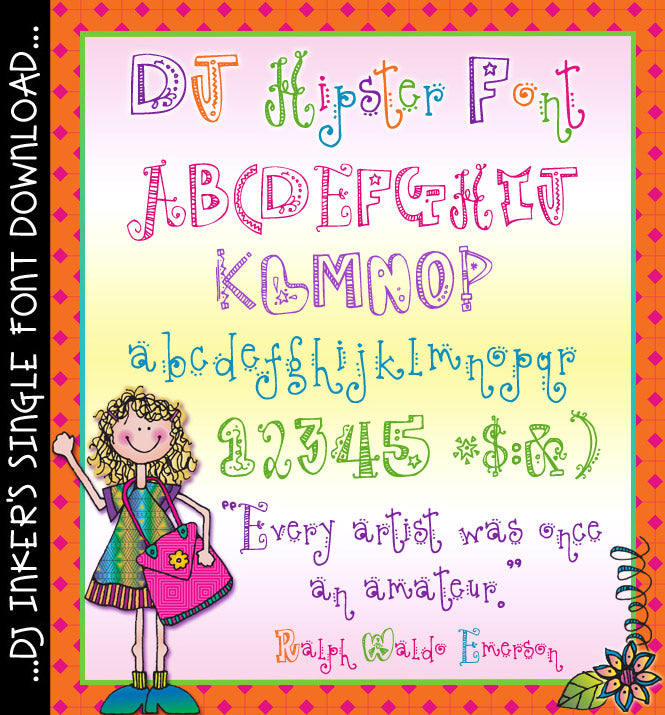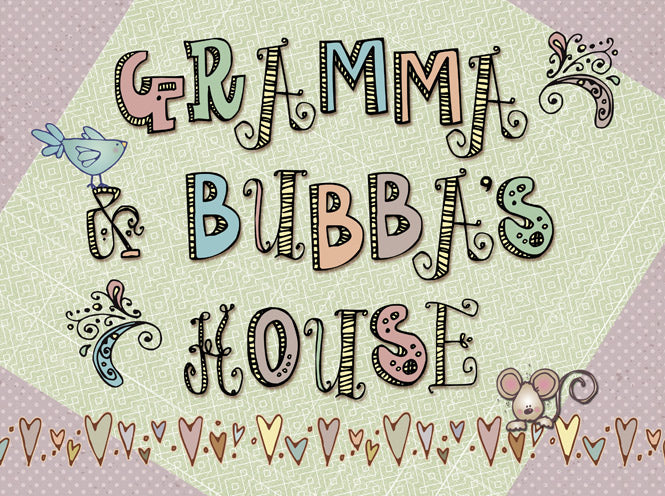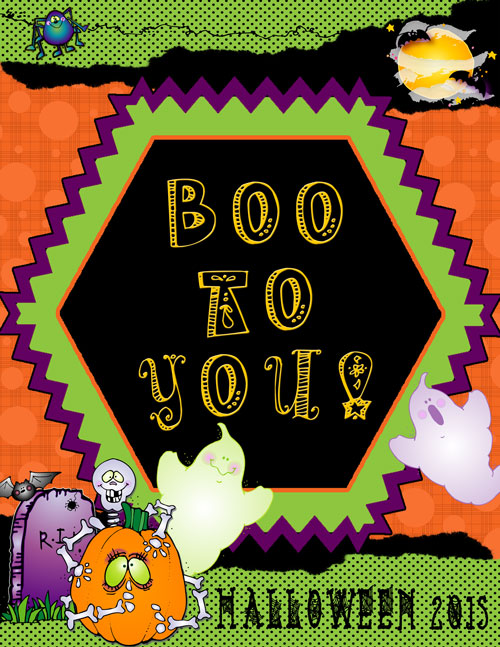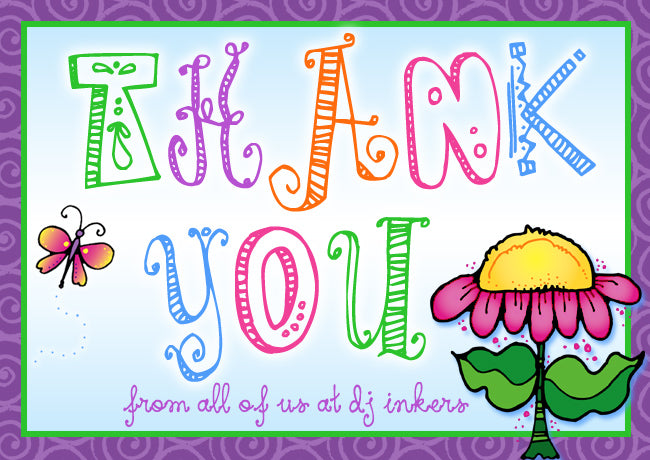
DJ Hipster Font Download
Our 'DJ Hipster' font actually makes typing FUN! Every capital letter
is doodled in a different style... so you'll have crazy, cool smiles on
your projects. This font definitely looks best in larger sizes & bright,
bold colors. Great for teens, tweens and your more 'edgy' creations.